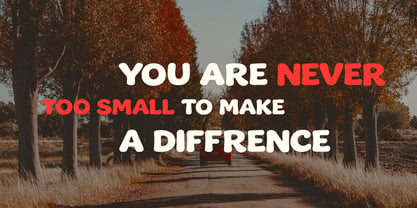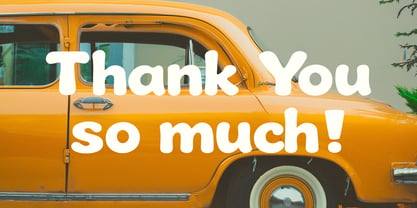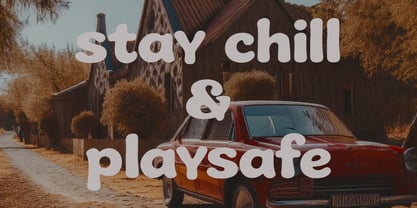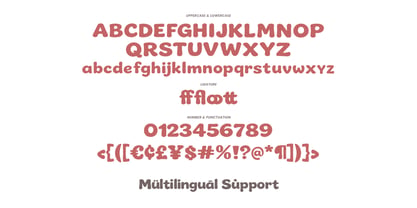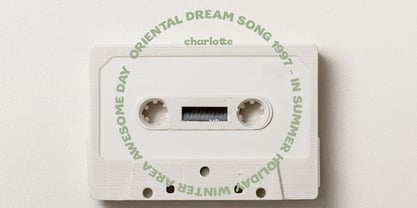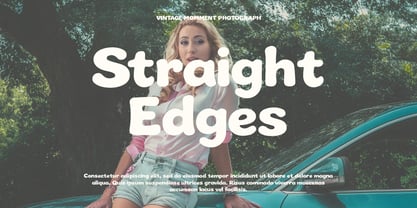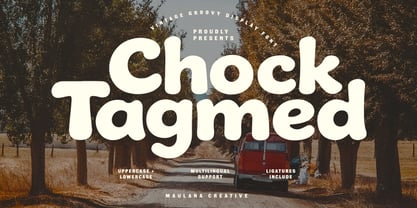
MC Chock Tagmed
by Maulana Creative
The MC Chock Tagmed Font Family was designed by Gilang Maulana and published by Maulana Creative. MC Chock Tagmed contains 1 styles. More about this family
Chock Tagmed is a bold display font that beautifully captures a classic, retro aesthetic with a playful touch. Featuring thick, rounded strokes and soft curves, this typeface delivers a warm, nostalgic feel ideal for eye-catching headlines. It comes fully equipped with uppercase and lowercase letters, numerals, punctuation, unique ligatures, and comprehensive multilingual support. Whether you are designing captivating posters, unique logos, retro-themed packaging, social media graphics, or website headers, this font adds a cheerful, timeless personality to any creative project.